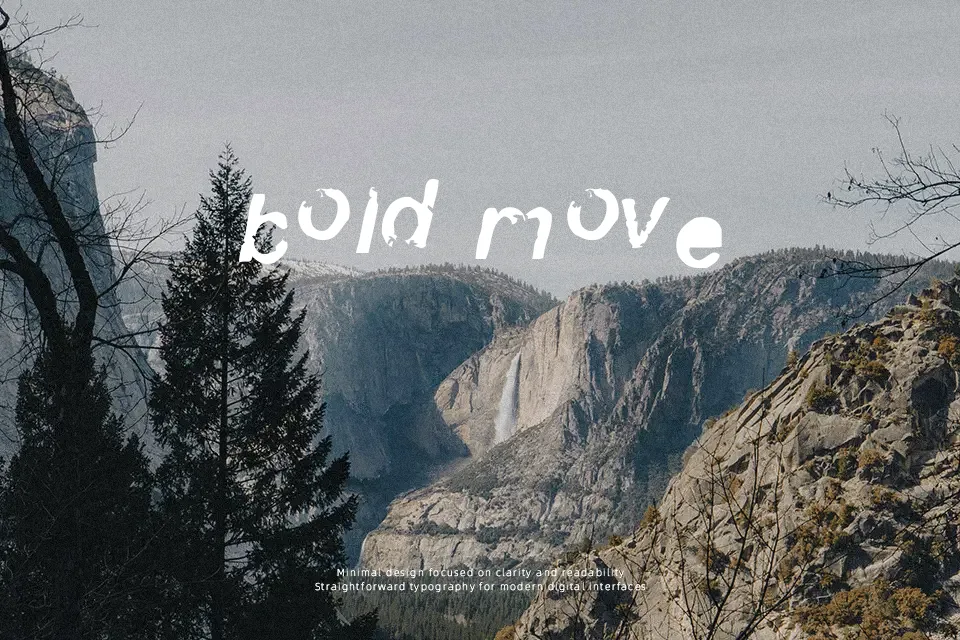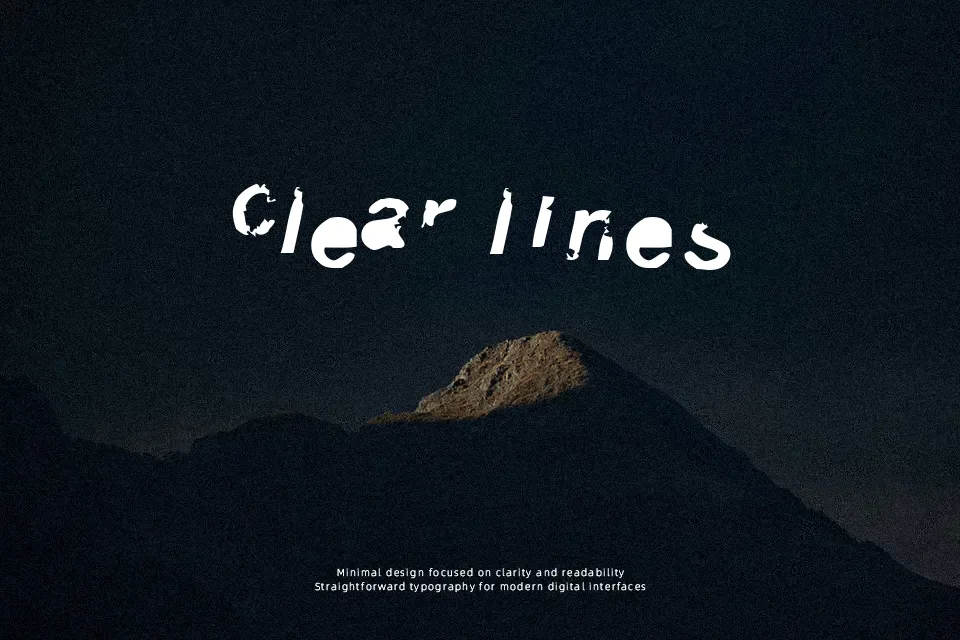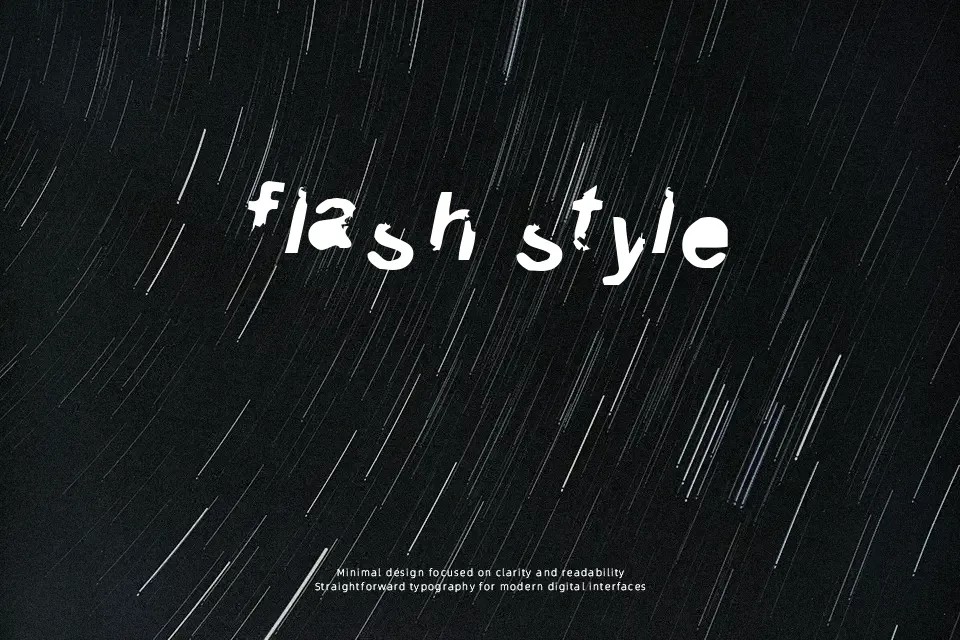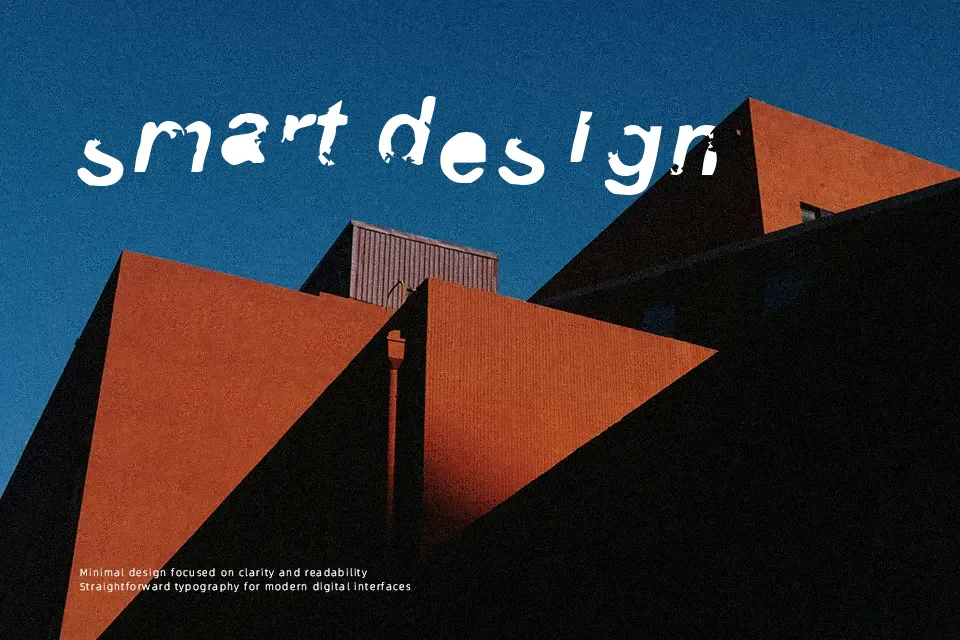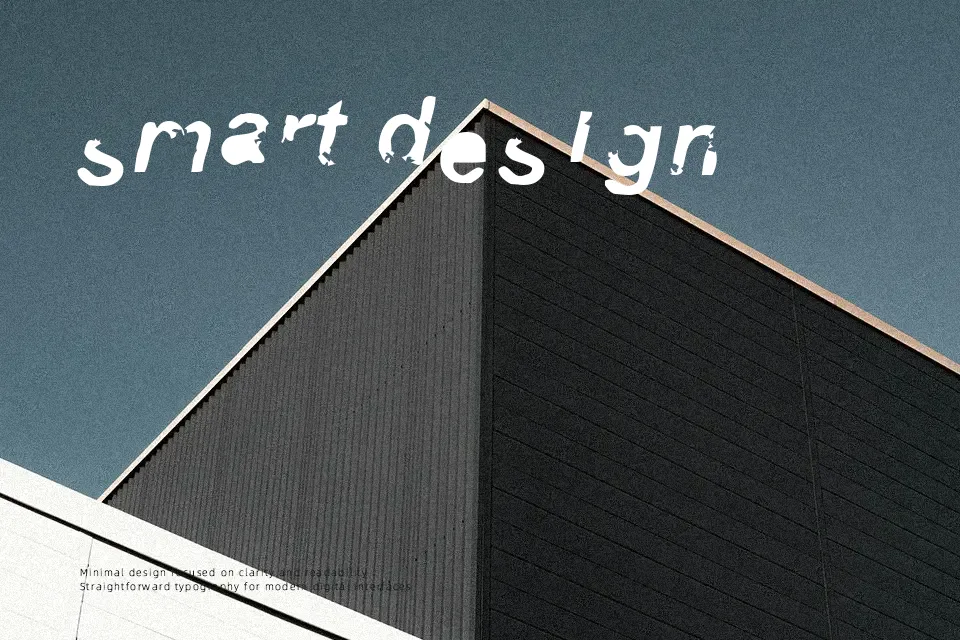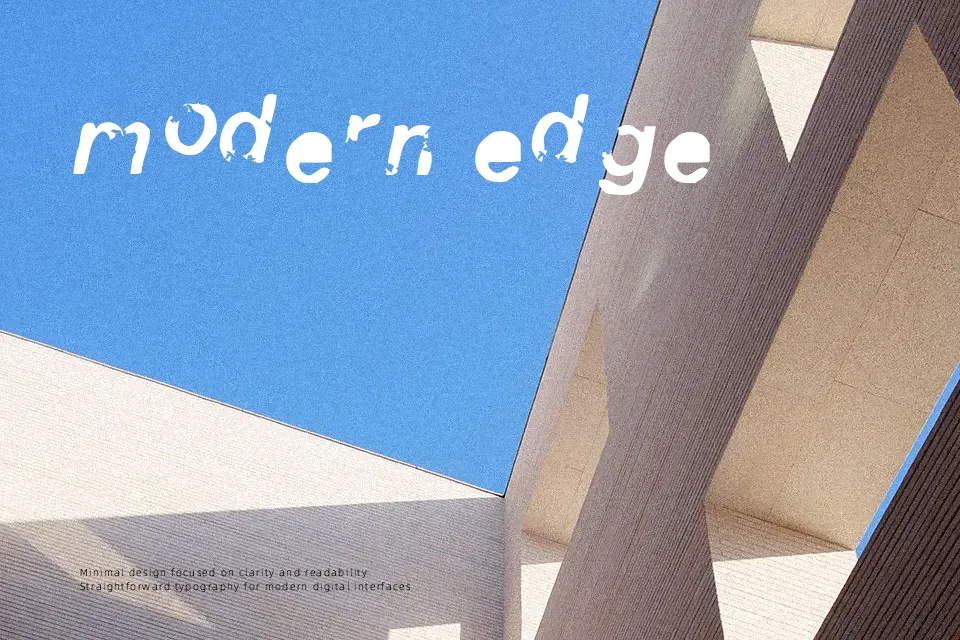
3 Font
3 Font immediately reads as a highly distressed display typeface, with heavy strokes that appear shattered and fragmented across each character. The letterforms are constructed from thick, angular pieces, creating strong visual contrast between filled areas and gaps along the stems and curves. Spacing feels relatively tight, so words form dense clusters of broken shapes rather than airy lines of text. Proportions lean toward squarish and compact forms, which reinforces its loud, graphic impact at larger sizes. The design maintains legibility in short headlines and single words, but continuous reading quickly becomes tiring as the fractured outlines disrupt smooth eye movement. This makes it effective for attention-grabbing titles or labels, while less suited to body copy or small captions where clarity is critical.
grunge-style poster headlines
album or mixtape cover titles
experimental logo wordmarks
festival or event graphic accents
technical manuals or reports
Perfect for advertising, headline, and logo, with a bold and decorative style.